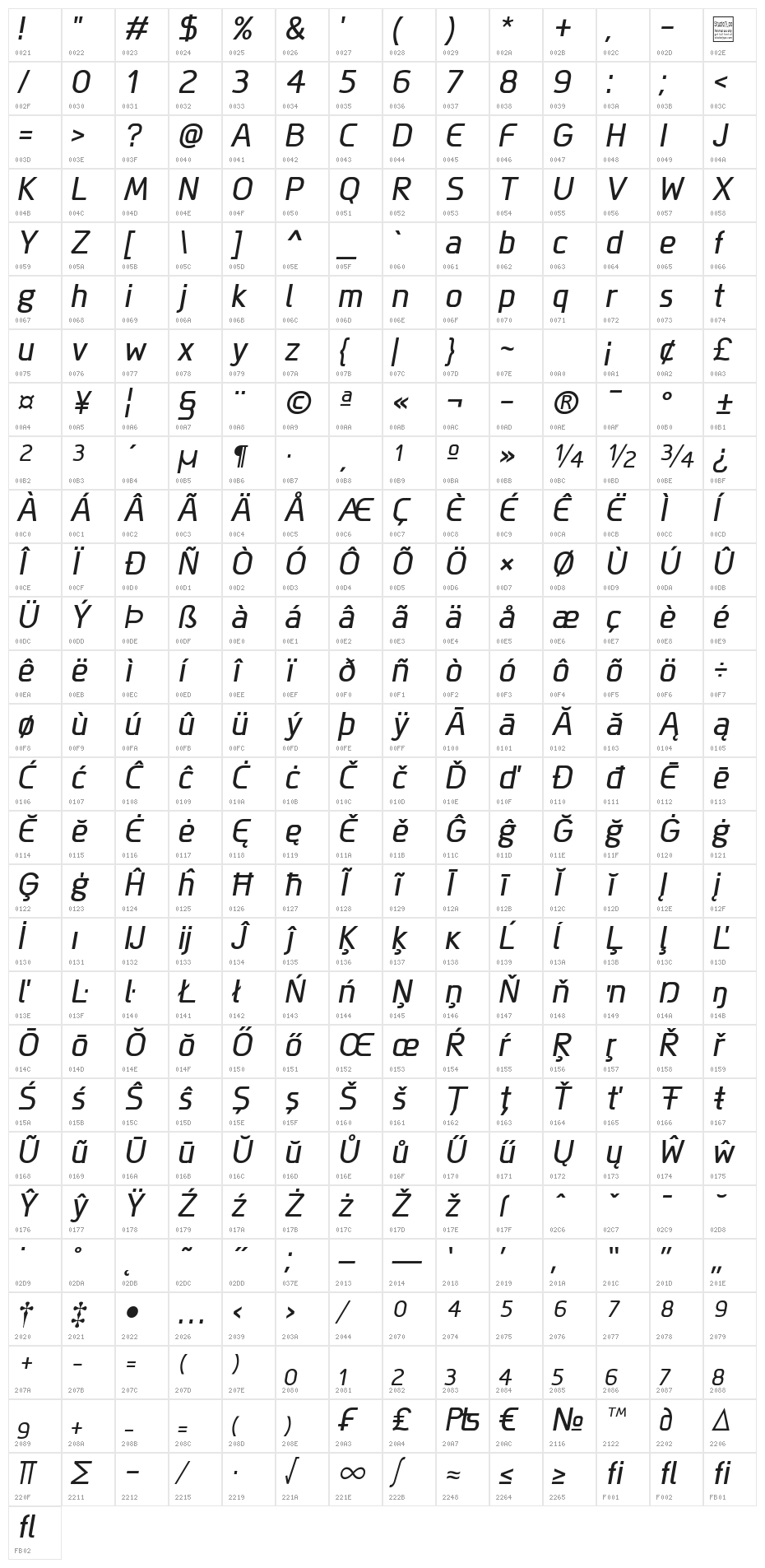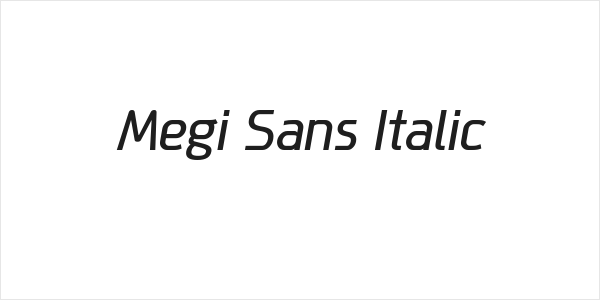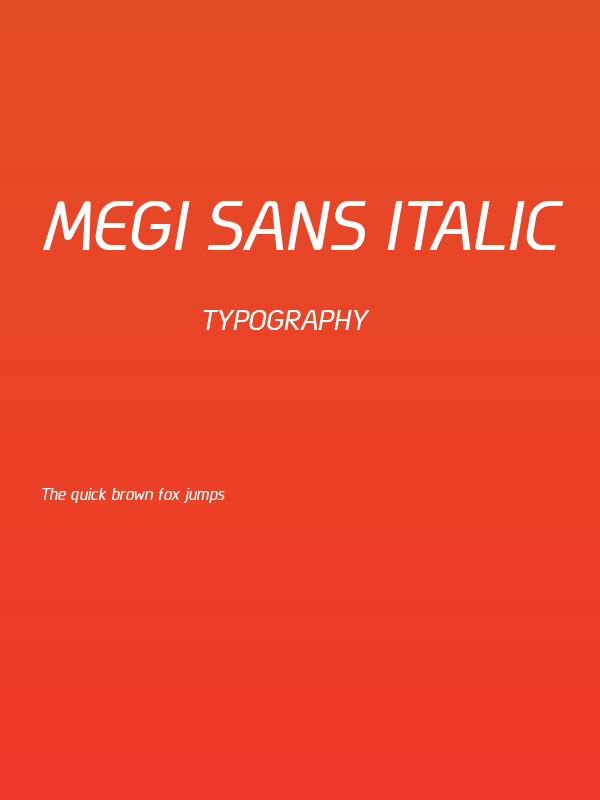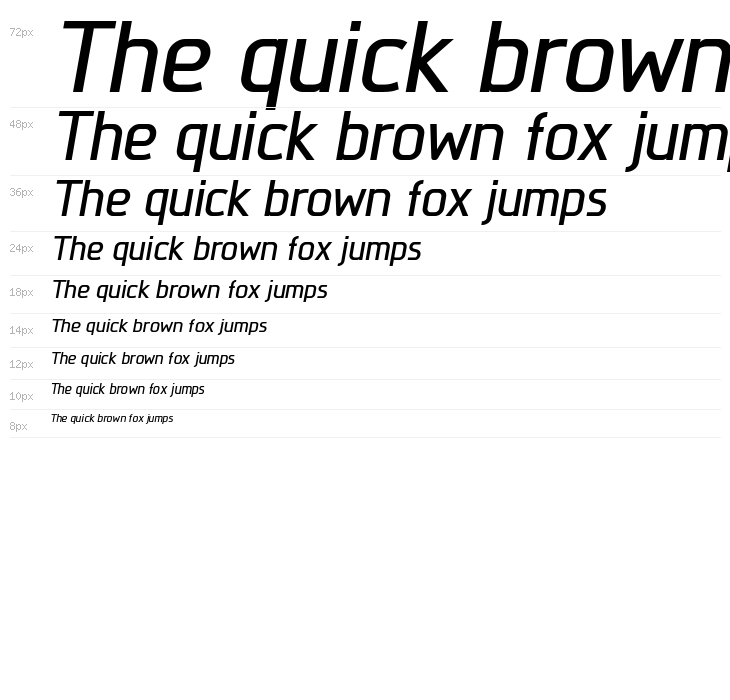
Megi Sans Italic Font
Megi Sans Italic Description
This typeface presents a sleek and modern design with a slight italic slant, giving it a dynamic and forward-moving appearance. The characters are clean and well-defined, with a consistent stroke width that maintains readability across various sizes. The font's sans-serif nature contributes to its contemporary feel, making it suitable for digital and print applications. The numerals and special characters are crafted with the same attention to detail, ensuring uniformity throughout the typeface. Its overall design is minimalistic yet impactful, making it versatile for numerous design contexts.
| Proposed Projects | Ideal for branding, advertising, digital interfaces, and editorial design. |